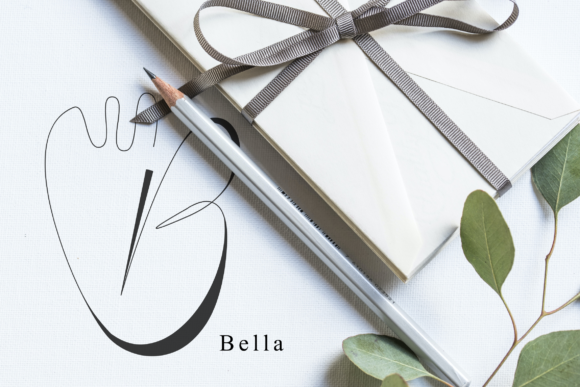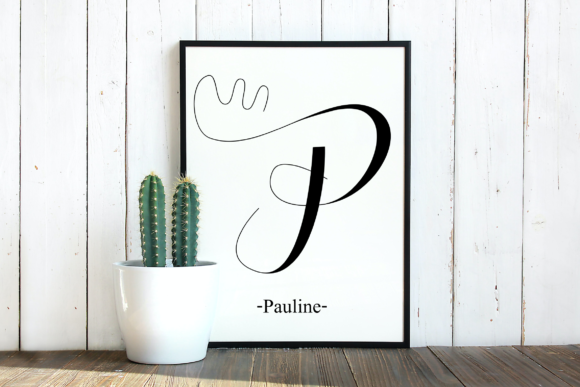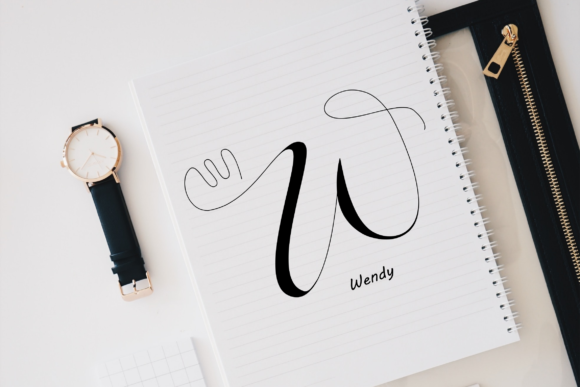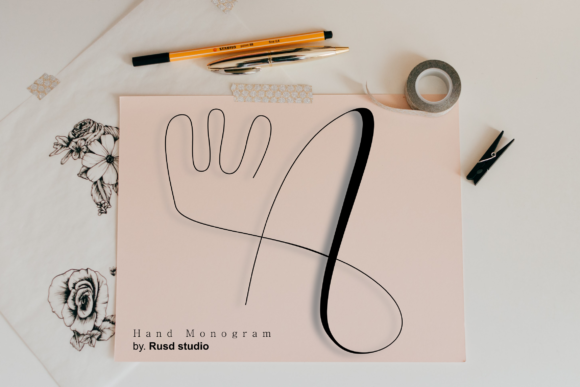
Introducing Hand Monogram Font: Elevate Your Designs with Elegance
Are you a designer or crafter looking for a font that exudes elegance and sophistication? Look no further than Hand Monogram Font, a beautiful handwritten font that features sweet swashes and a delicate touch. This stunning font is perfect for a wide range of crafty ideas, from letterheads and titles to stationery and more.
The Charm of Hand Monogram Font
Hand Monogram Font is an elegant and dainty handwritten font that is sure to capture the hearts of designers and crafters alike. Its original look is characterized by sweet swashes that add a touch of whimsy and romance to any design. The font’s delicate features make it perfect for creating beautiful and feminine designs that are sure to stand out.
Uses for Hand Monogram Font
Hand Monogram Font is incredibly versatile and can be used for a wide range of design projects. Here are just a few ideas to get you started:
- Letterheads and Titles: Add a touch of elegance to your letterheads and titles with Hand Monogram Font. Its delicate features make it perfect for creating beautiful and professional-looking designs.
- Stationery: Create stunning stationery designs with Hand Monogram Font. From wedding invitations to thank-you cards, this font is sure to add a touch of sophistication to your designs.
- Branding and Packaging: Use Hand Monogram Font to create beautiful and eye-catching branding and packaging designs. Its elegant features make it perfect for luxury brands and products.
- Digital Designs: Hand Monogram Font can also be used for digital designs, such as social media graphics, blog headers, and more.
Why Choose Hand Monogram Font?
So why choose Hand Monogram Font over other fonts? Here are just a few reasons:
- Unique and Original: Hand Monogram Font is a unique and original font that is sure to stand out from the crowd.
- Elegant and Sophisticated: The font’s elegant features make it perfect for creating sophisticated and professional-looking designs.
- Versatile: Hand Monogram Font is incredibly versatile and can be used for a wide range of design projects.
Tips for Using Hand Monogram Font
Here are a few tips for using Hand Monogram Font:
- Pair with Other Fonts: Pair Hand Monogram Font with other fonts to create a unique and eye-catching design.
- Use for Headings: Use Hand Monogram Font for headings and titles to add a touch of elegance to your designs.
In conclusion, Hand Monogram Font is a beautiful and elegant handwritten font that is perfect for designers and crafters looking to add a touch of sophistication to their designs. Its unique and original look, combined with its versatility and ease of use, make it a must-have font for any design project. Whether you’re creating letterheads, titles, stationery, or digital designs, Hand Monogram Font is sure to elevate your designs to the next level.